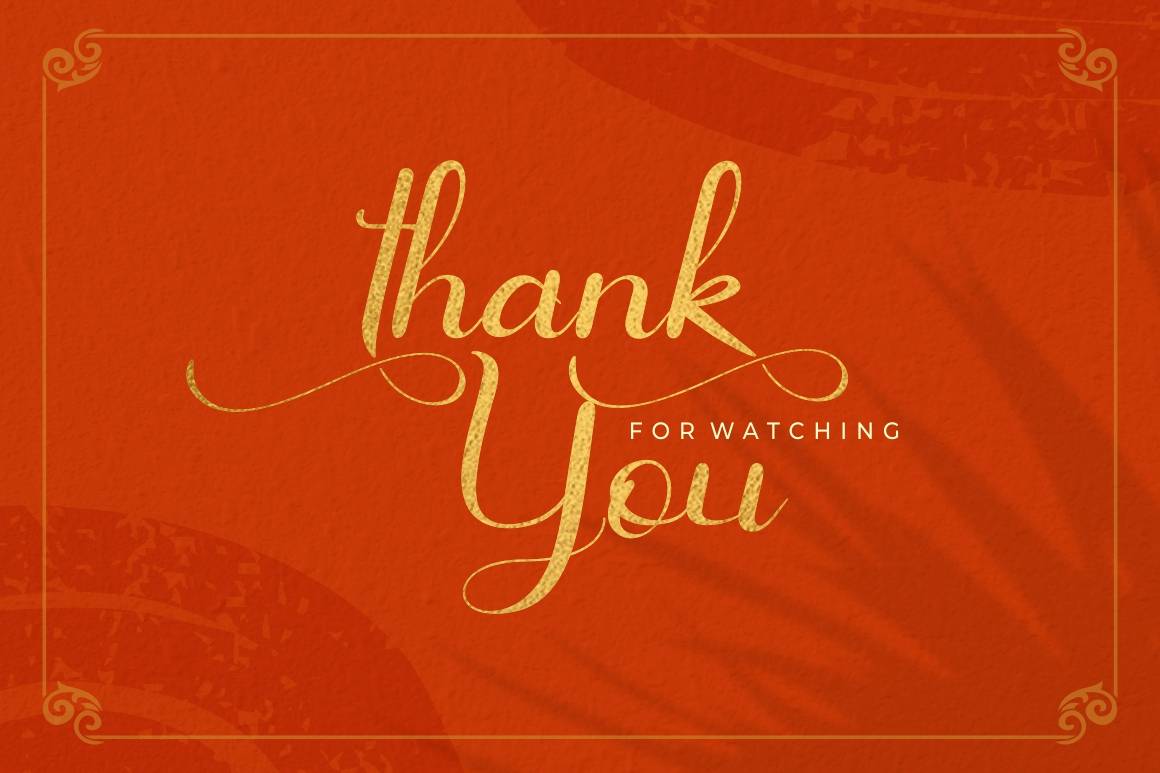
Vanetta is an elegant, script-style font characterized by its graceful, flowing letterforms with delicate swashes and flourishes, giving it a refined and sophisticated appearance. Its light weight and high contrast strokes make it perfect for luxury branding, wedding invitations, and editorial headlines where a touch of classic, ornamental beauty is desired. This font captures a romantic, vintage feel while maintaining readability, ideal for designs that seek to convey elegance and charm.
Vanetta Font
About Vanetta Font
| Font family | Vanetta Font |